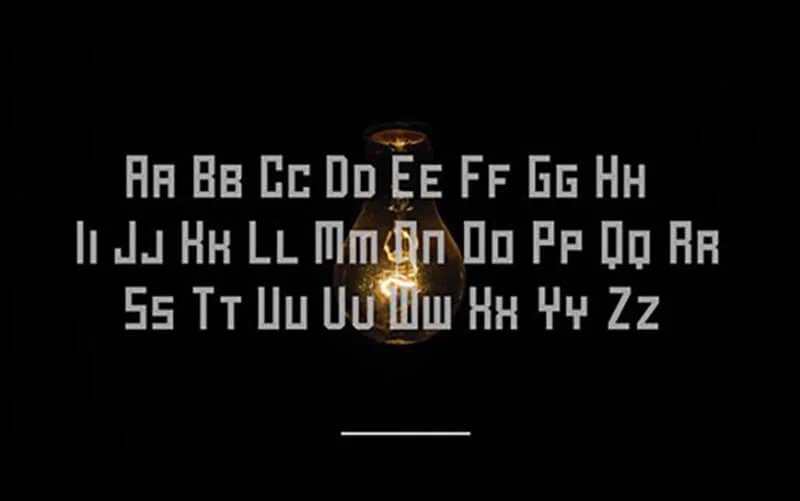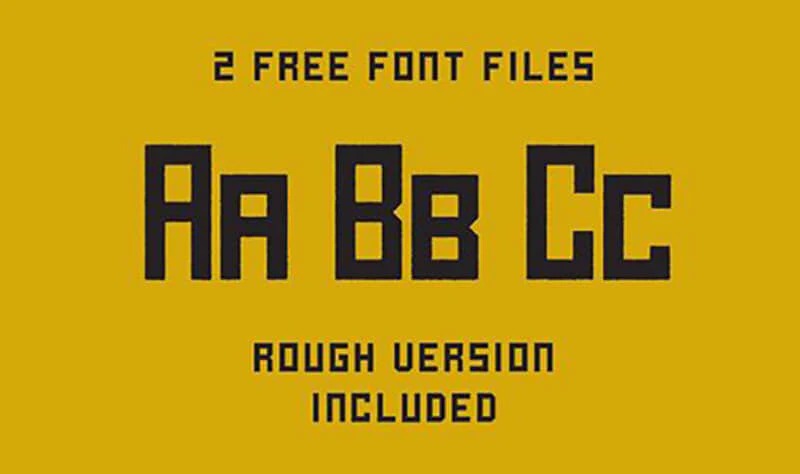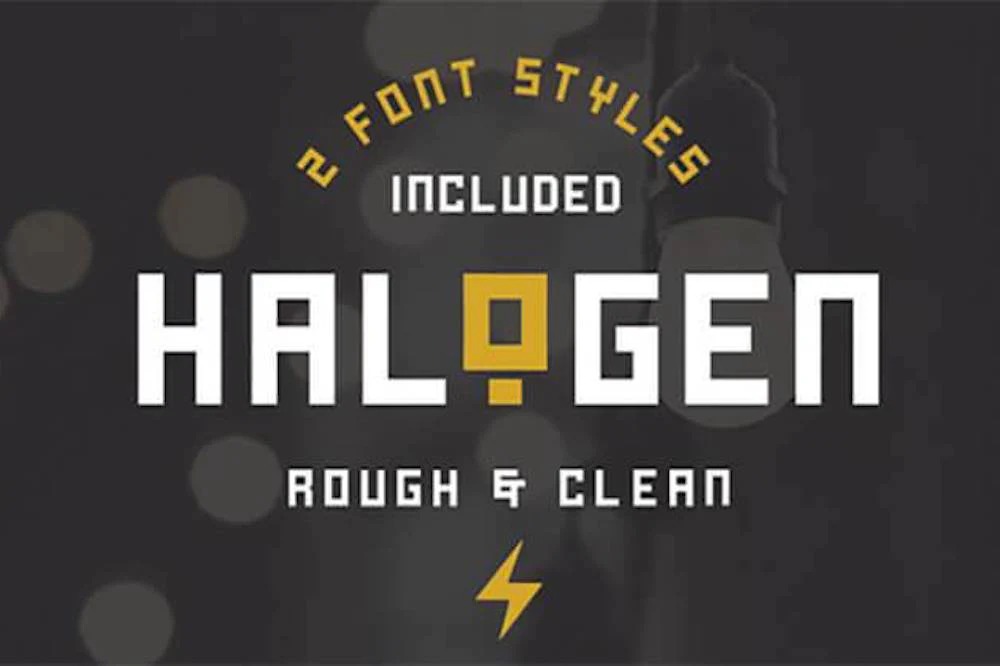
Halogen Display Font is a blocky display typeface that comes with alternate characters, western European accents & a rough version of the original typeface. Halogen is an All-Caps typeface with Large Caps & Small Caps. Ideal for titles, sports designs, logos, games, automotive, monograms or other modern dynamic text.